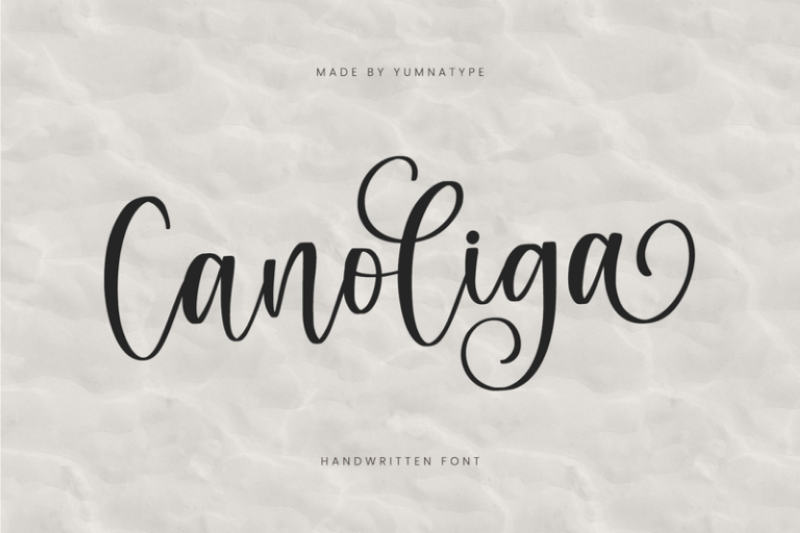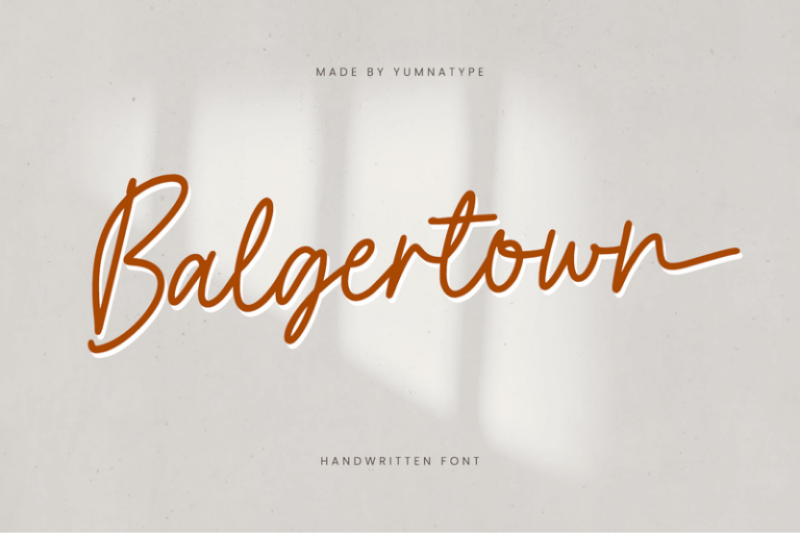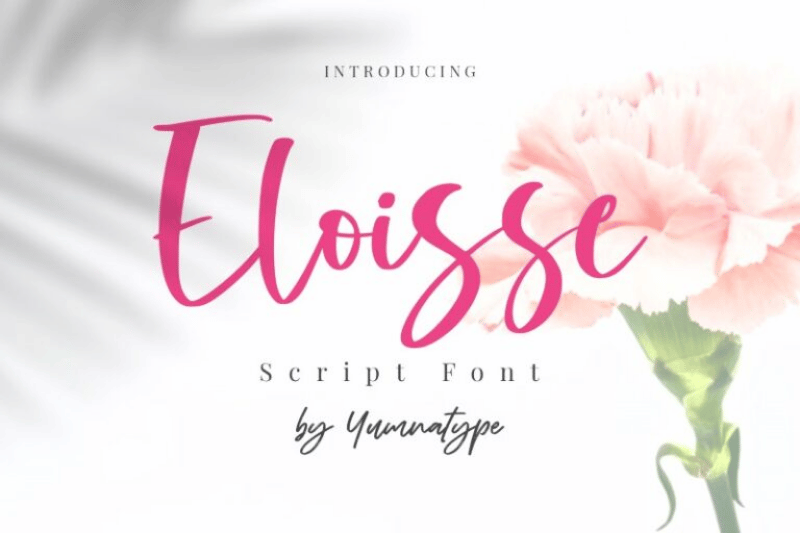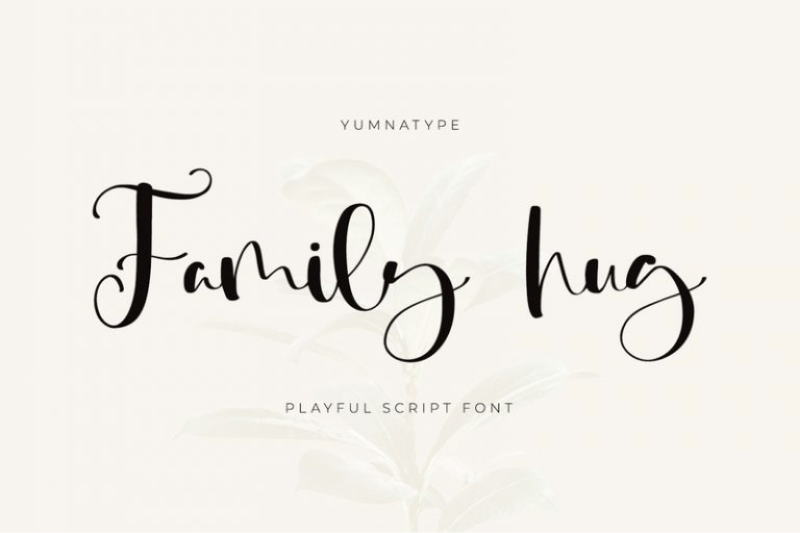
10 Romantic Wedding Script Font Collections for Your Special Day
Wedding design should not only be about combining colors and decoration. Your design should have an aesthetic that reflects the story of two people in love. The use of a good wedding script font will be an important element we can’t miss in building a romantic and lasting visual. Your typography should not only function as a text element but also represent the emotion needed to enhance the design. Through the right choice of letter characters, designers will be able to evoke a feminine, warm, and loving impression that feels smooth and strong at the same time.
Normally, a romantic wedding script font has a thin line with a long, elegant curve. The structure of the letter feels natural, giving off a sense of elegance and intimacy. Furthermore, the smooth contrast in each of the strokes can strengthen the aesthetic value and create a harmonious visual appearance.
This article will explore 10 romantic wedding script font recommendations for bridal couples or wedding designers to decide on the right typography. Using the right font for each wedding design element, such as wedding invites and decoration, can evoke a beauty that is harmonious with the sacred moment.
Angelia
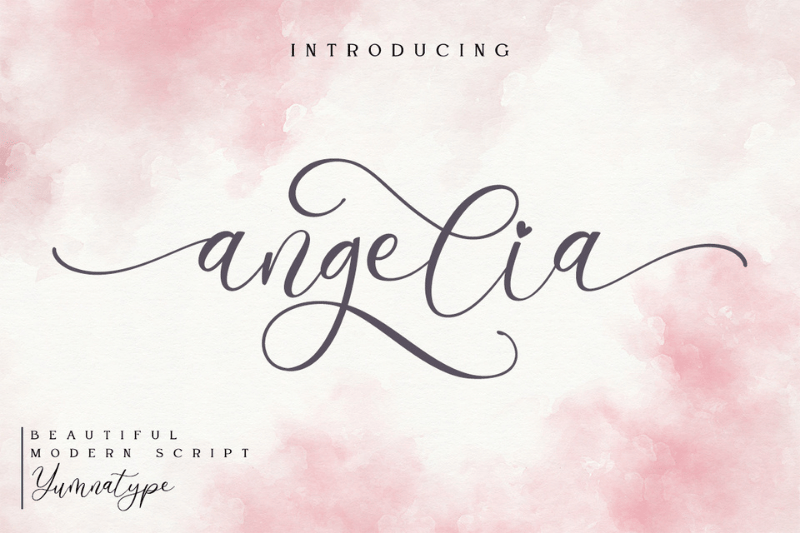
The first one on this list is Angelia Lovely Script. This typeface is such a perfect wedding script font with modern script characters and consistent thin lines. As a result, the overall visual appearance appears light and elegant. Each letter flows naturally with long, graceful swashes, especially in the first and last letterings. The thin, proportional letter structure creates a clean, feminine, and romantic impression in one single harmonious composition.
The smooth curve details and sharp terminal characters strengthen the warm and intimate nuance without looking overdone. This character makes Angelia Lovely Script perfect for invitations, monograms, greeting cards, and other types of designs that prioritize an elegant look.
Angelin Heart
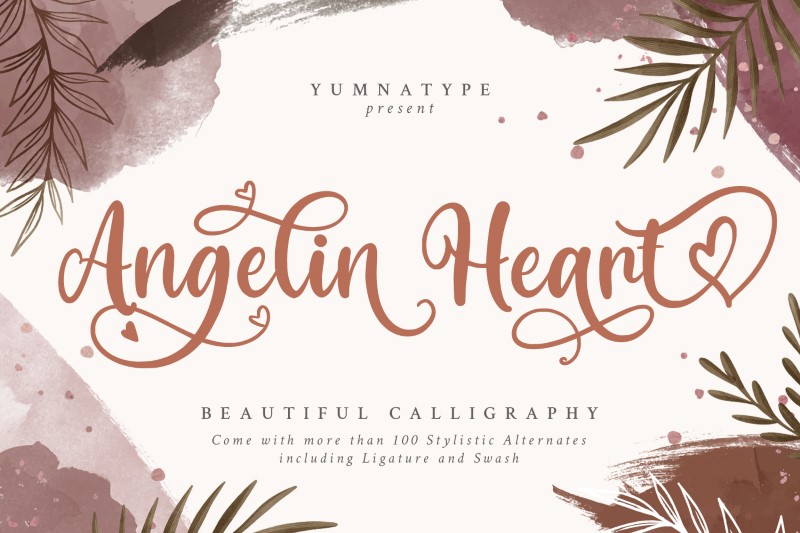
Angelin Heart’s harmonious blend of thick and thin lines makes it a perfect choice for classy and elegant wedding designs. As a wedding script font with a smooth, calligraphy style, this font presents a flowy, dynamic letterform with long curves. Moreover, the decorative swash details add a romantic and feminine feel, making the overall design look flexible, warm, and personal at the same time.
The heart-shaped ornaments that seamlessly integrate with the letters of this font create a sweet and impressive visual identity. Angelin Heart has stylistic alternates and ligatures that make it possible for variative, exclusive, and harmonious text composition.
Barelyn
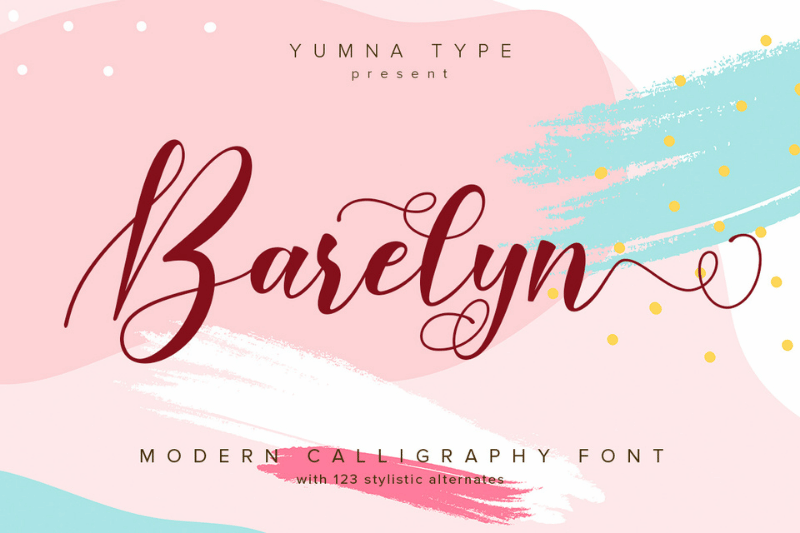
Graceful, flowy line movements of the Barelyn font make it a perfect choice for a modern and romantic wedding. This font combines thick and thin lines with adequate contrast that make each letter look lively and expressive. The long curves and flowy swash details in the letter make the nuance even more feminine and elegant.
In addition, Barelyn has a bolder linestroke compared to other script fonts, creating a luxurious and characterful impression. This wedding script font works incredibly for use in wedding invites, decorative signage, couple monogram designs, and classy, romantic headlines.
Bright Monday
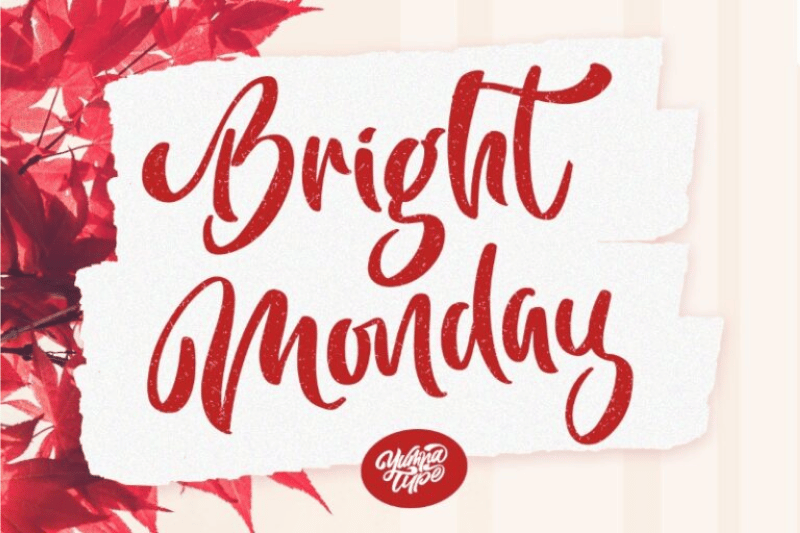
Bright Monday has a bold and expressive script character along with its dominant, bold strokes and dynamic, flowy letter flow. Each character is designed with rounded shapes and soft strokes, resulting in a more natural and neat-looking writing flow. Additionally, the letter proportion is wide and tall, making a text feel solid and stand out, especially when it is used for a headline.
Bright Monday’s uniqueness lies in its smooth, brush-styled textures, which create a natural and artistic effect. As a romantic wedding script font, this font is excellent for headlines, invitations, decoration backdrops, wedding signage, and other various designs.
Brigtia Lovely Swash Font
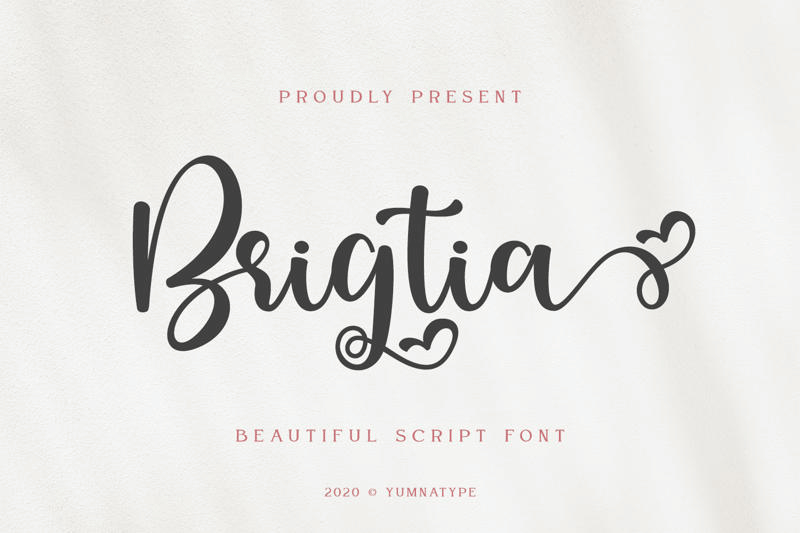
Brigtia’s beautiful decorative touches make it stand out, particularly with its romantic and more personal nuance. This font has a pleasant and graceful visual composition with smooth script characters, a simple yet ornamental letter structure, rounded letterforms, strong contrast, and flowy curves.
Heart-shaped ornament details integrated smoothly in some characters make this wedding script font look even more romantic. The balance between the simple letterform and the light, decorative element makes Brigtia adaptable for various design applications. All in all, you can optimally apply Brigtia for premium wedding designs.
Carlista
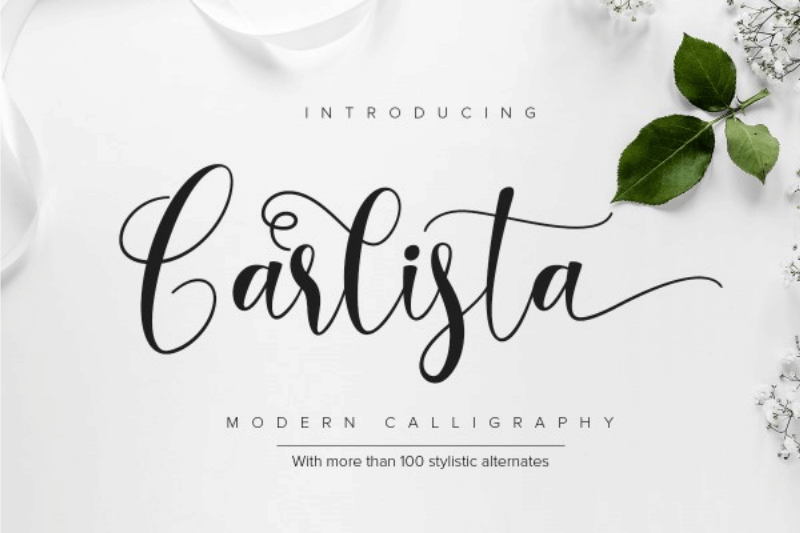
Carlista is a script font with a lovely appearance and smooth handwriting nuance in all of its strokes. The letter character flows nicely with its balanced thick and thin lines. The swash and ornamental curves enhance the romantic effect while maintaining visual harmony.
So, what are you waiting for? Choose the most suitable wedding script font for your sweetest bridal moment. Use it consistently in all design elements to create a strong and impressive sense from the very beginning, because each love story is worth writing with beautiful typography.